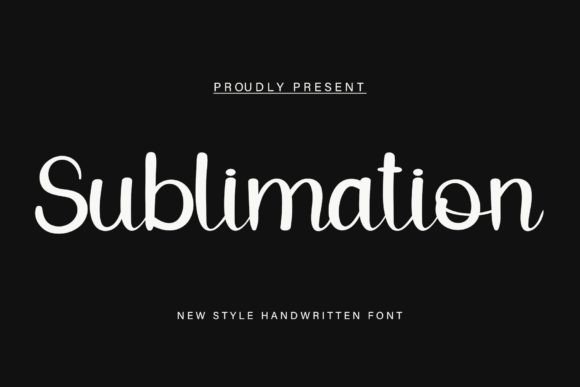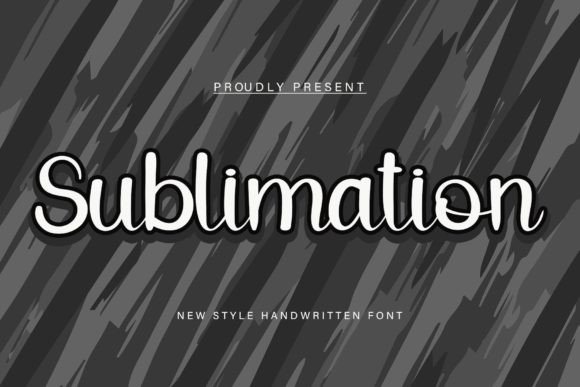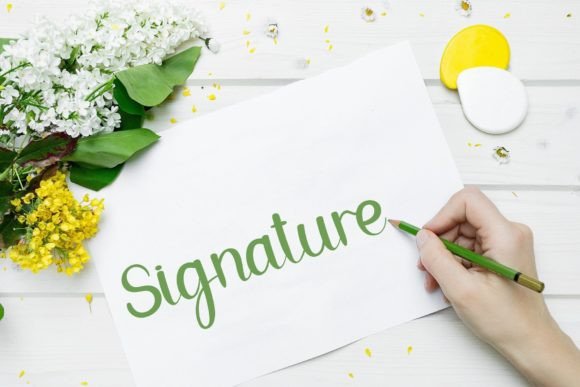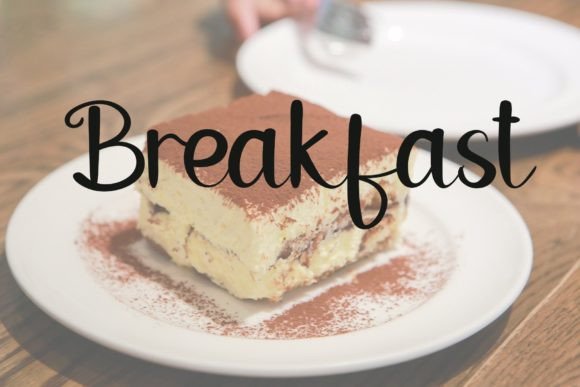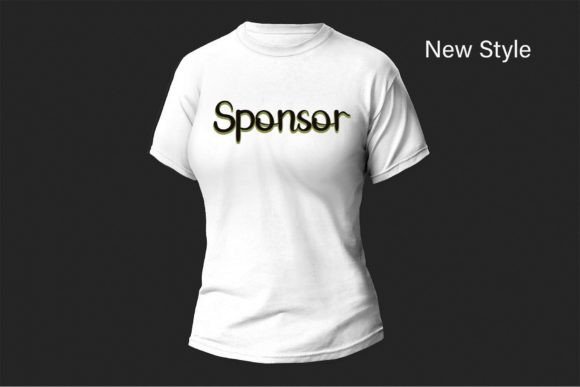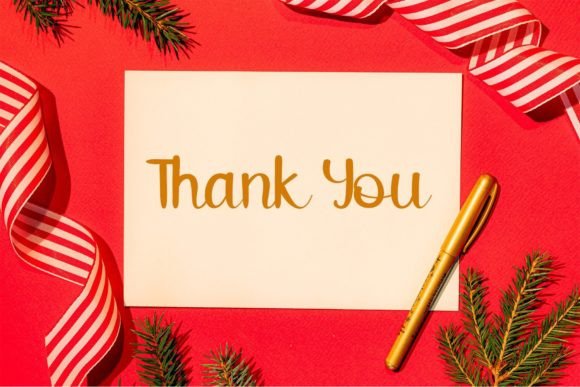
Sublimation Font
About Sublimation Font
“Sublimation” is introduced as a neat and beautiful handwritten font distinguished by its elegant touch. Positioned as perfect for various creative projects, this font is described as having an incredibly distinct and timeless style. The suggestion is to fall in love with its aesthetic and use it to create spectacular designs.
The emphasis on an elegant touch in “Sublimation” suggests a font that brings a sense of sophistication and refinement to the table. Handwritten fonts with an elegant style often convey a balance between personal warmth and a touch of formality, making them versatile for a range of design applications.
The use of terms like “distinct” and “timeless” suggests that “Sublimation” aims to provide a design element that stands out and transcends trends. This quality can be advantageous for projects that require a lasting and classic appeal.
The versatility of the font is implied, allowing it to be applied to a variety of creative endeavors. Whether you’re working on branding, invitations, or other design projects, “Sublimation” aims to bring a beautiful and distinct handwritten style to enhance the overall visual impact.
In summary, “Sublimation” is presented as more than just a font; it’s a design tool ready to add elegance and timelessness to your favorite projects. Whether used for branding, invitations, or other creative designs, let “Sublimation” be the font that elevates your work with its neat and beautiful handwritten style.